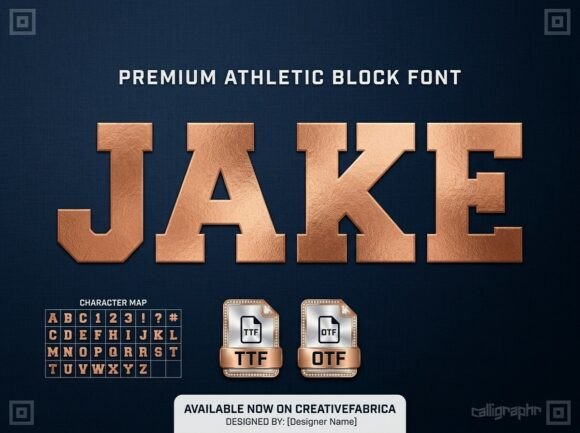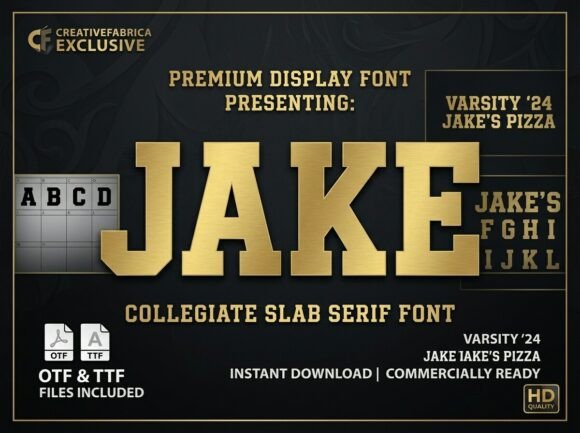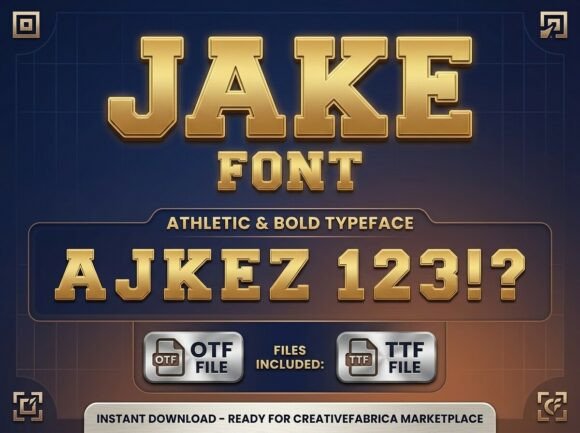
Introduction to Jake Font
Have you ever been working on a design project, and you just can’t seem to get the right font to match the energy and excitement of your idea? You’ve tried countless options, but nothing seems to capture the essence of what you’re trying to convey. That’s where the Jake Font comes in – a premium varsity block font that brings the spirit of the stadium to your designs.
As a designer, you know how important it is to have high-quality design resources at your fingertips. The Jake Font is a valuable addition to any design library, offering a bold and commanding presence that’s perfect for sports-related projects, event posters, and more. With its classic collegiate proportions and sharp slab serifs, this font is sure to elevate your creative project and leave a lasting impression.
- Perfect for use in a variety of creative projects, including logos, typography, and graphics, due to its unique and stylish design.
Honest Review: Jake Font
I recently stumbled upon Jake Font while searching for a free download to enhance a creative project. I was impressed by the high quality and versatility of this font, making it a great design resource.
- What works well: ✨ The clean and modern design of Jake Font makes it perfect for various creative projects, including logos, typography, and more.
- What works well: ✨ The font is highly customizable, allowing users to adjust the size, color, and style to fit their specific needs.
- What works well: ✨ Jake Font supports a wide range of languages, making it a great option for projects that require international support.
However, I did encounter some limitations while using Jake Font.
- Limitations: ⚠️ The font does not support transparent backgrounds, which can be a drawback for projects that require a high level of customization.
- Limitations: ⚠️ The font is not compatible with all operating systems, which can be a problem for users who work with a variety of platforms.
Overall, I’m impressed with Jake Font, and I would recommend it to designers who are looking for a high-quality, free download for their creative projects. With a little creativity, the limitations of Jake Font can be overcome, and it can be a valuable addition to any design resource collection.
Jake Font is ideal for use in creative projects such as logos, brochures, and social media graphics. Its high-quality design makes it perfect for business cards, menus, and other marketing materials. The transparent background feature makes it easy to overlay text on images, creating a unique and eye-catching design.